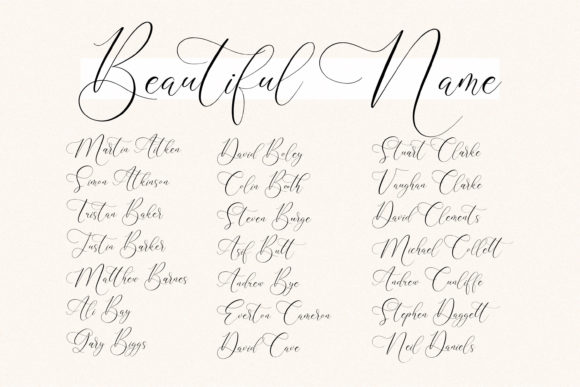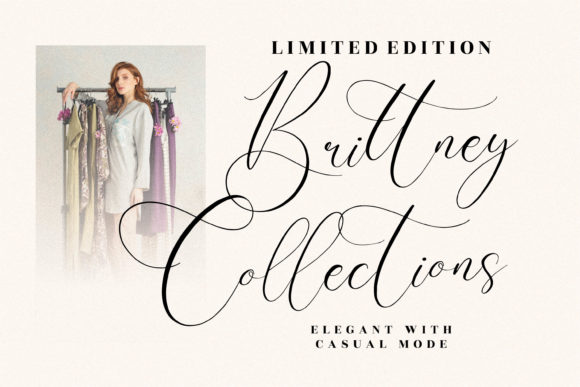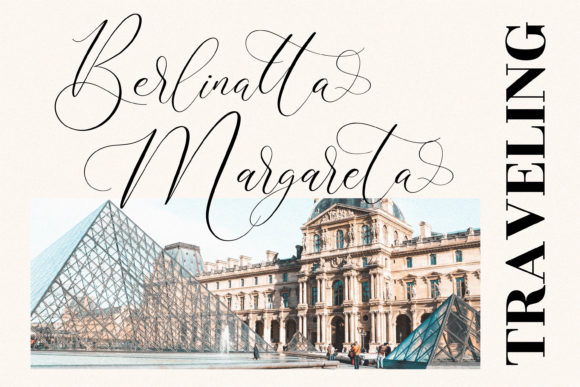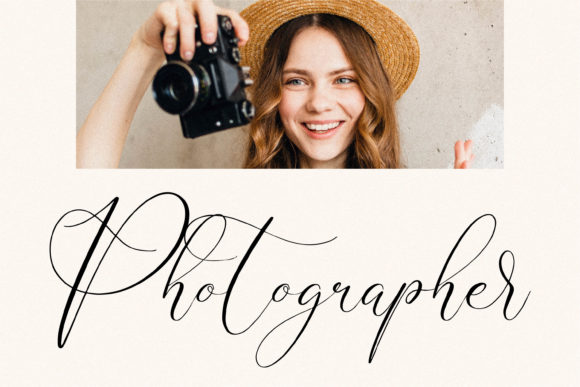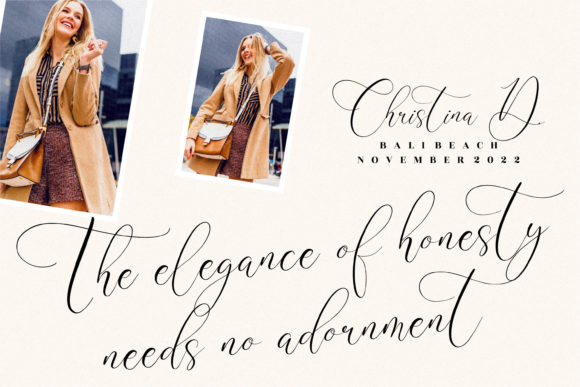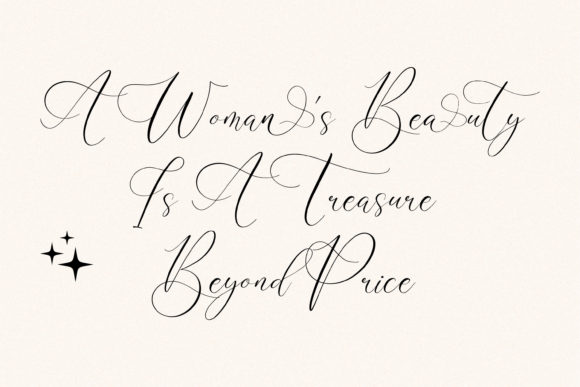
Introducing Anatasya Lenttera Font: Elevate Your Designs with Elegance and Sophistication
In the world of typography, a font can make or break a design. For designers and crafters seeking to add a touch of class and modernity to their work, Anatasya Lenttera Font is an exceptional choice. This beautiful and refined script font is designed to bring a sense of elegance and sophistication to various design projects, from logos and branding to invitations, stationery, wedding designs, social media posts, and more.
The Essence of Anatasya Lenttera Font
Anatasya Lenttera Font stands out with its classy, elegant, and modern aesthetic. Its refined script style is perfect for designers who aim to create visually appealing and professional-looking designs. Whether you’re working on a logo, a wedding invitation, or a social media post, this font ensures that your project exudes a sense of luxury and sophistication.
One of the key benefits of Anatasya Lenttera Font is its versatility. Its elegant and modern look makes it suitable for a wide range of design projects, including:
- Logos and Branding: Create a lasting impression with a logo that embodies elegance and sophistication.
- Invitations and Stationery: Add a touch of class to your invitations, business cards, and letterheads.
- Wedding Designs: Make your wedding designs, such as invitations and programs, truly unforgettable.
- Social Media Posts: Elevate your social media presence with stylish and engaging posts.
Why Choose Anatasya Lenttera Font?
There are several reasons why designers and crafters should consider Anatasya Lenttera Font for their projects:
- Elegant and Modern Design: The font’s refined script style ensures that your designs look contemporary and sophisticated.
- High Versatility: Use the font across various design projects, from print to digital media.
- Easy to Read: Despite its elegant style, the font remains clear and easy to read, making it perfect for body text and headlines.
- Customizable: Experiment with different sizes, colors, and styles to match your design vision.
Tips for Using Anatasya Lenttera Font
To get the most out of Anatasya Lenttera Font, consider the following tips:
- Pair with Complementary Fonts: Combine Anatasya Lenttera Font with sans-serif fonts for a balanced and harmonious look.
- Experiment with Colors: Try different colors and gradients to add depth and interest to your designs.
- Play with Sizes: Use varying font sizes to create visual hierarchy and emphasize key elements.